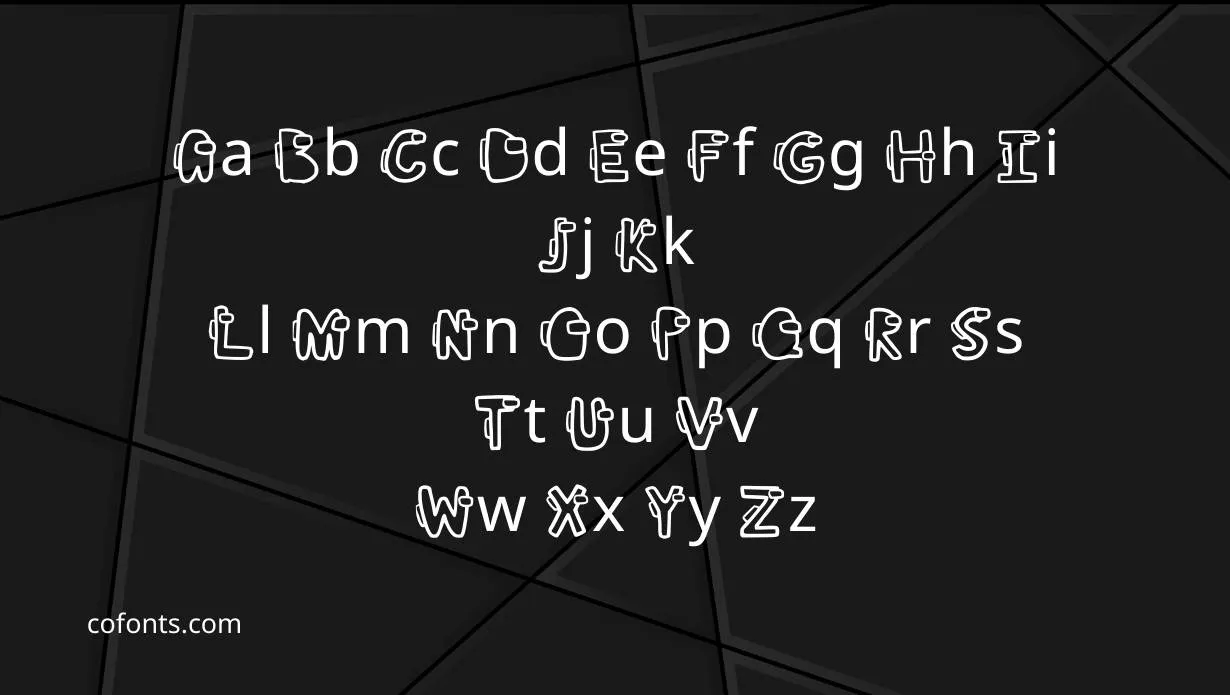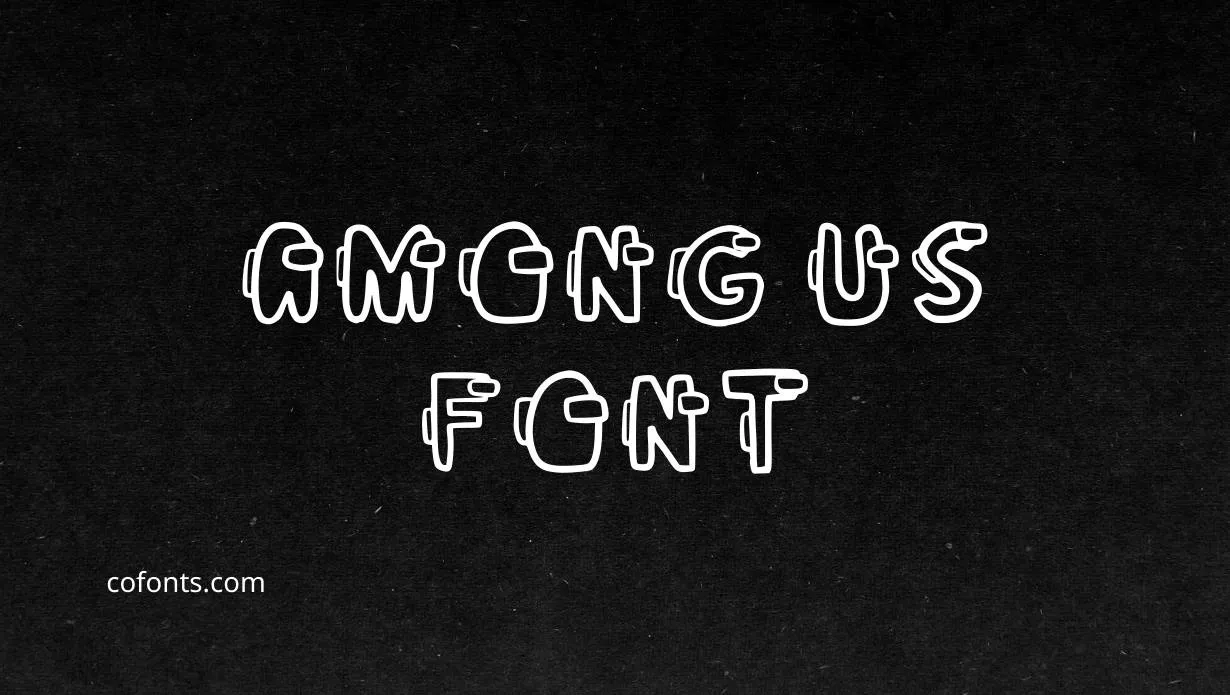
Among Us Font Free Download is a modern typeface available in multiple variants and styles.
- Among Us Font Regular
- Among Us Font Bold
- Among Us Font Italic